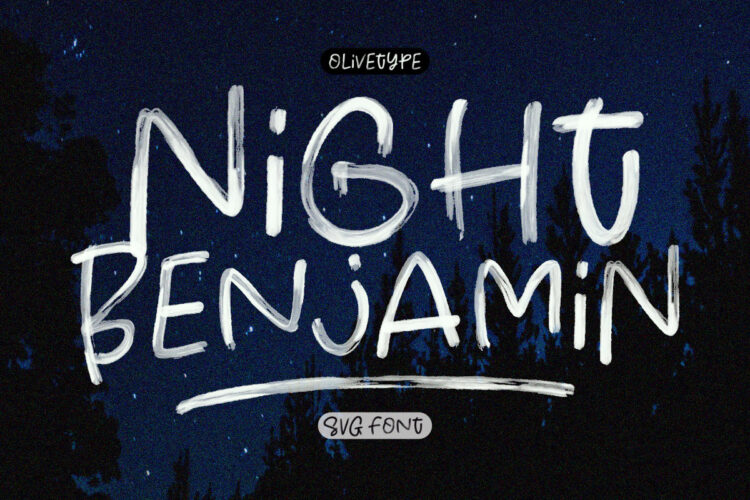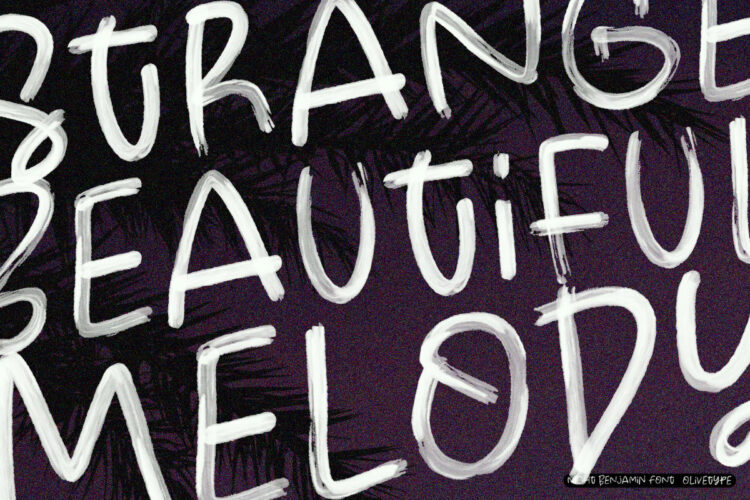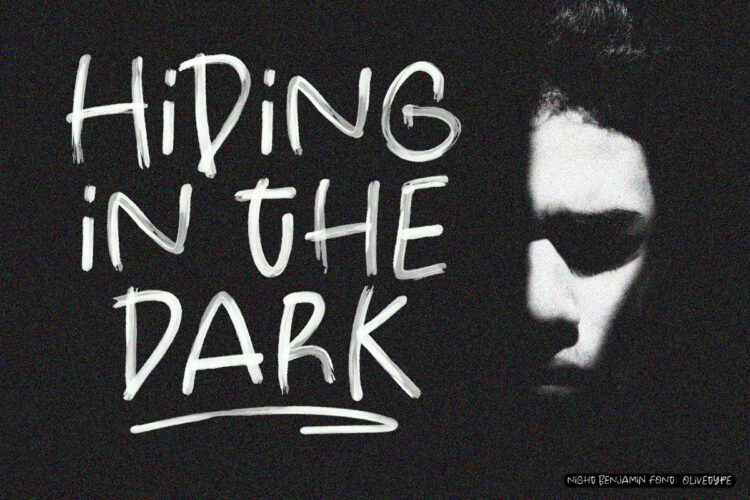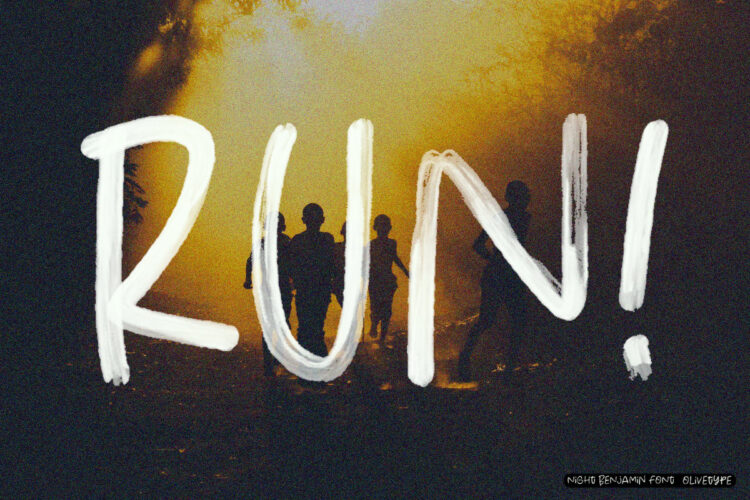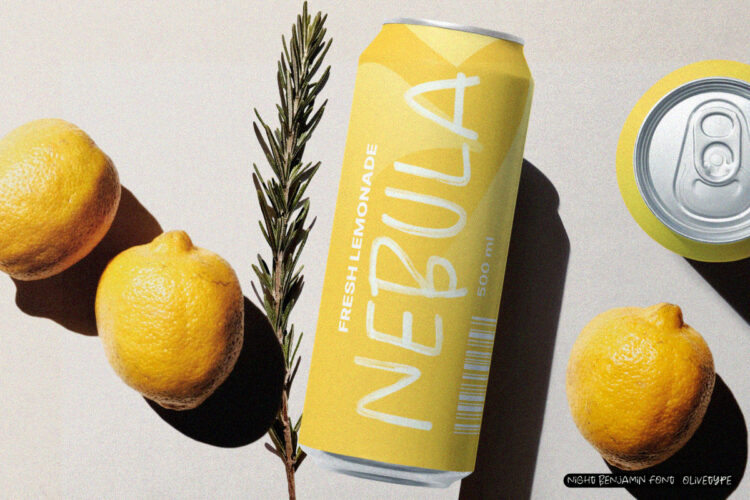
Night Benjamin is a textured SVG font. This font is available in two types, SVG (texturized Version) and solid regular font version. Night Benjamin is carefully handcrafted to become a true favorite. Its casual charm makes it appear wonderfully down-to-earth, readable, and ultimately, incredibly versatile. Night Benjamin is outstanding in any context, whether it’s being used on busy backgrounds or as a standalone headline!